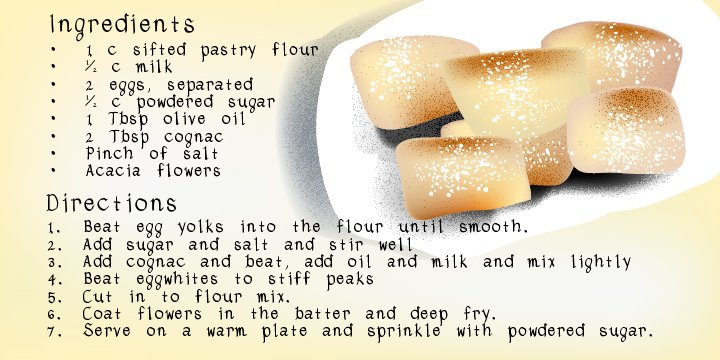
Created in 2009 by V.H. Fleisher, Eldra 90 has a handmade quality. The font has an opentype feature, arbitrary fractions, that can be accessed in programs like the Adobe Creative Suite. Supported languages include: Albanian, Czech, Danish, Dutch, English, Faroese, Finnish, French, German, Icelandic, Italian, Norwegian, Portuguese, Spanish & Swedish.
Eldra 90
Eldra 90 Oblique